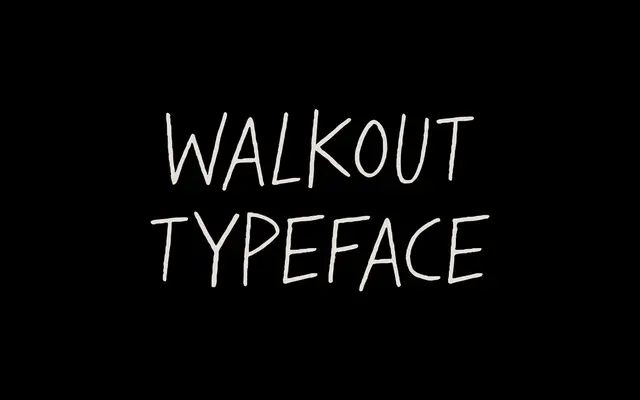
Walkout
A hand-drawn display face with deliberately uneven letterforms, drawn from protest sign aesthetics and aimed at headlines and disruptive typographic work.
Strong, irregular strokes give this face a raw, handmade quality that sits apart from polished brush scripts or clean display types. It comes as a single Regular weight covering 206 glyphs with broad Western European language support, including Icelandic and Welsh. Best used large, in short bursts, where its deliberate unevenness reads as energy rather than imprecision.
Walkout is a hand-drawn display typeface with intentionally uneven letterforms and protest-influenced aesthetics, placing it firmly in the expressive display category rather than any regularised script or sans tradition.